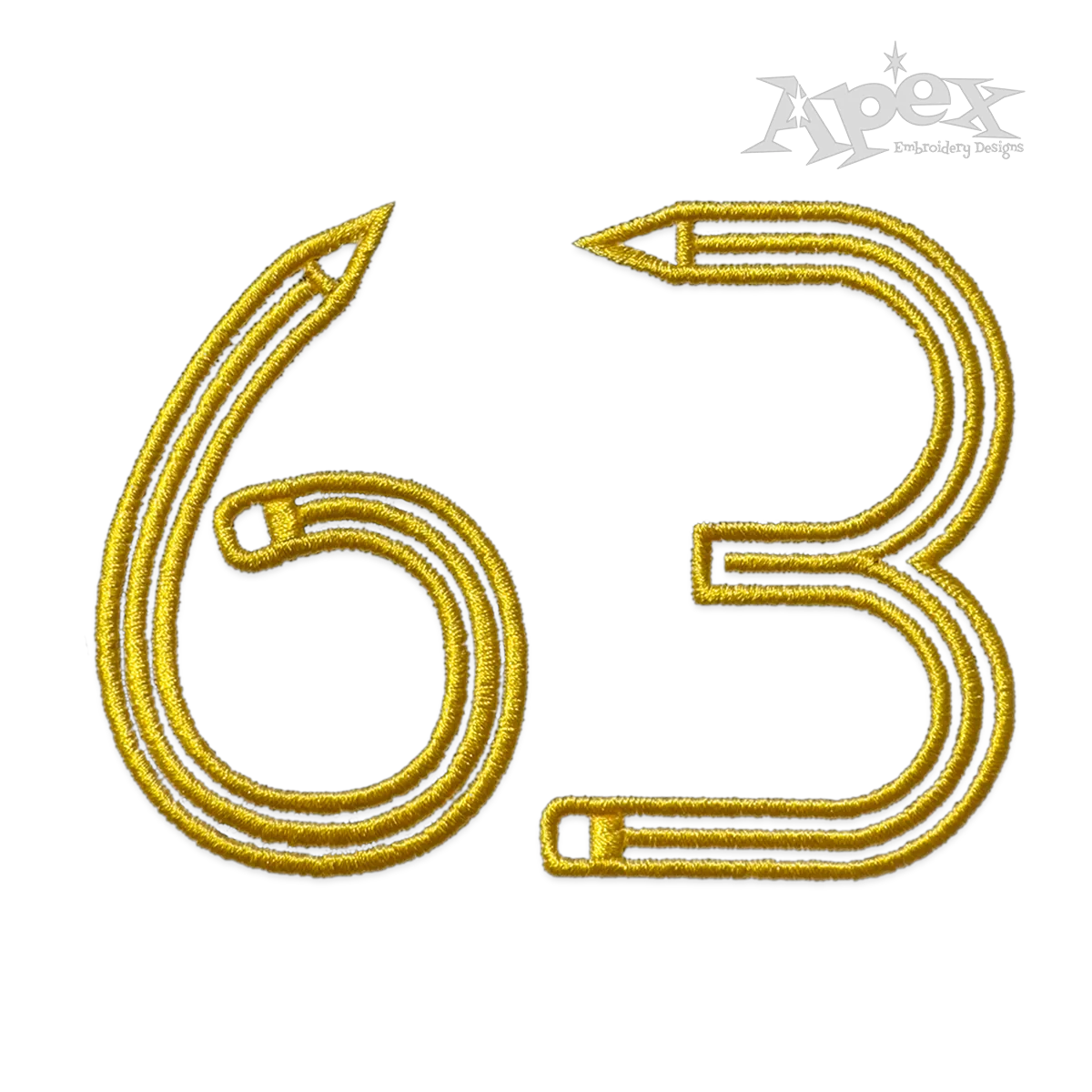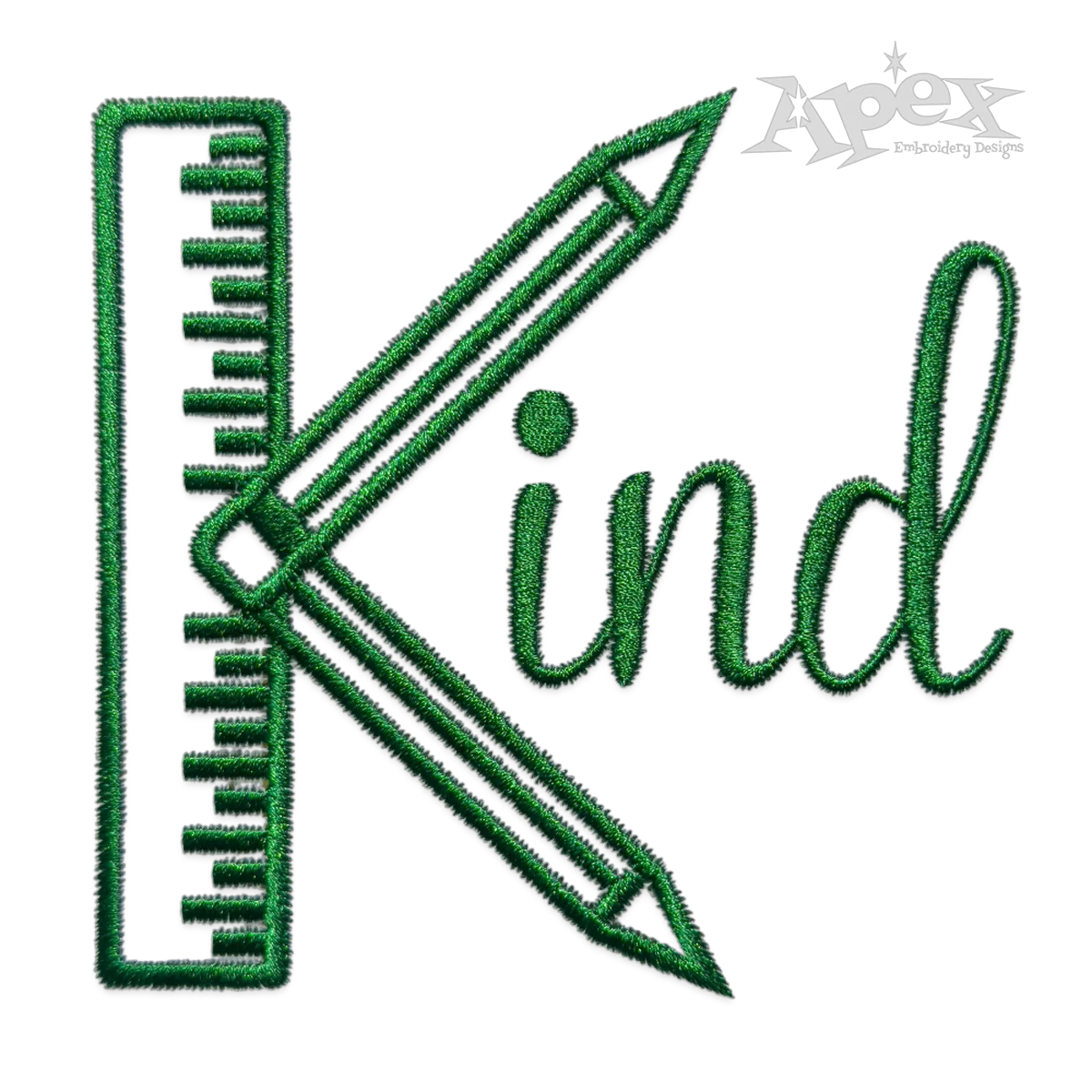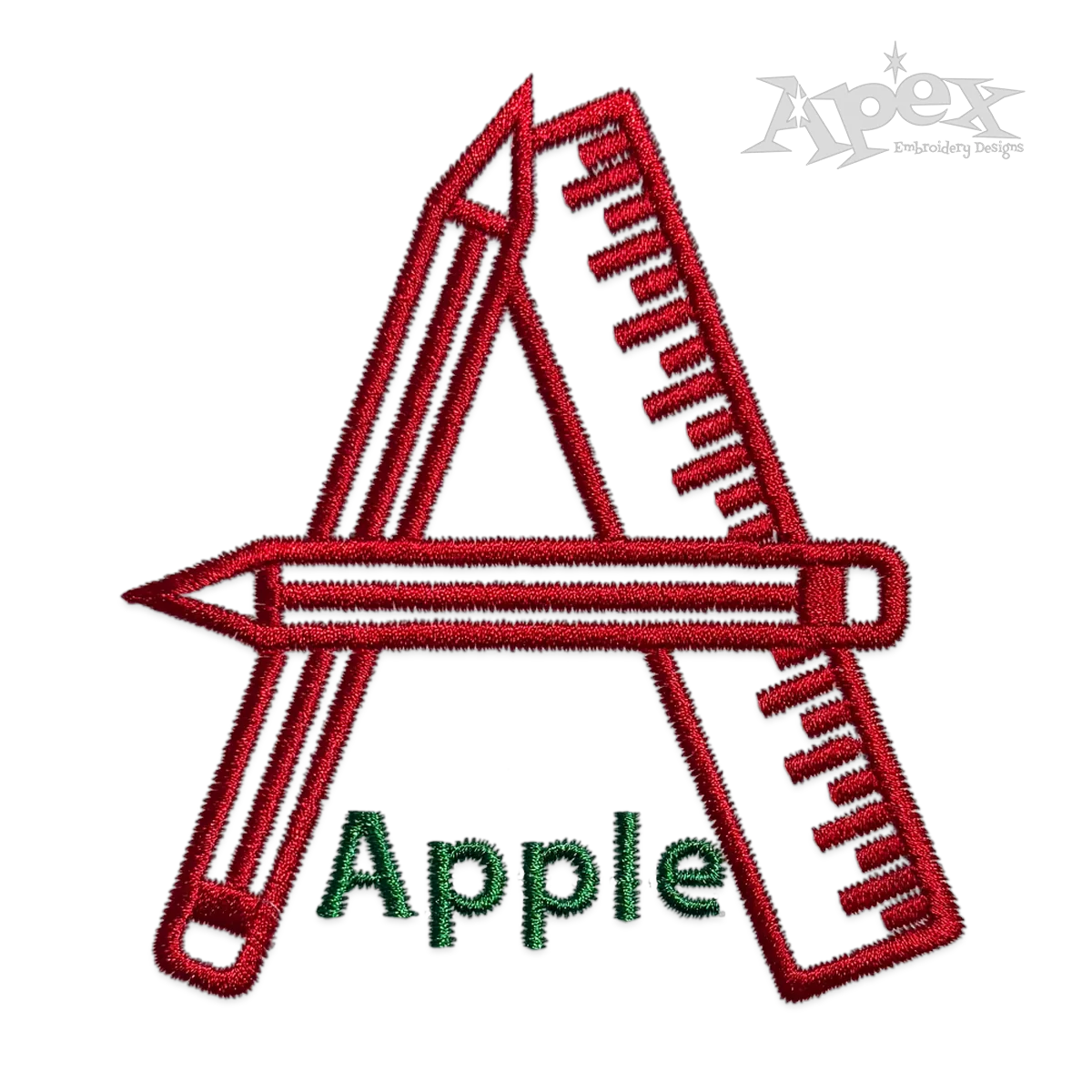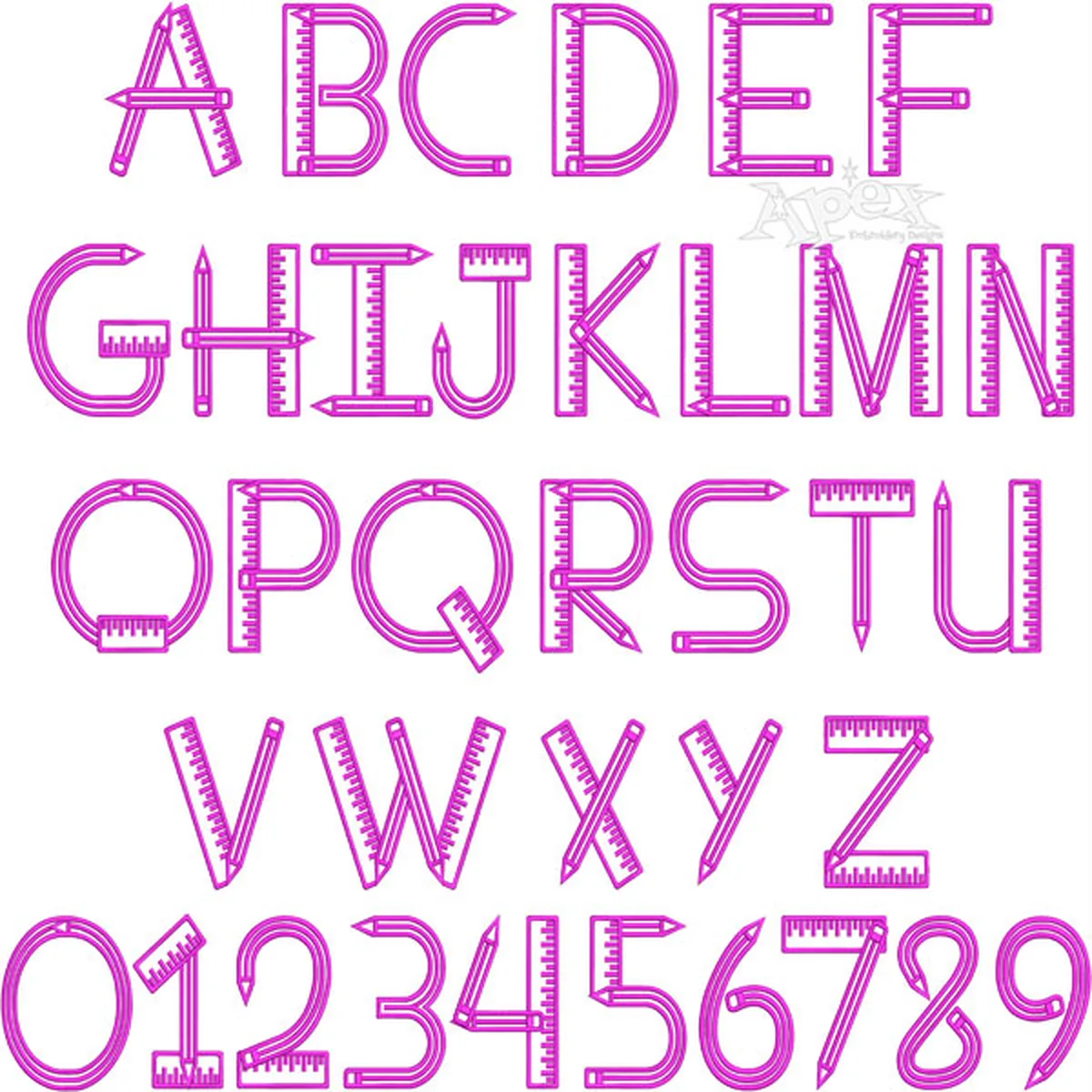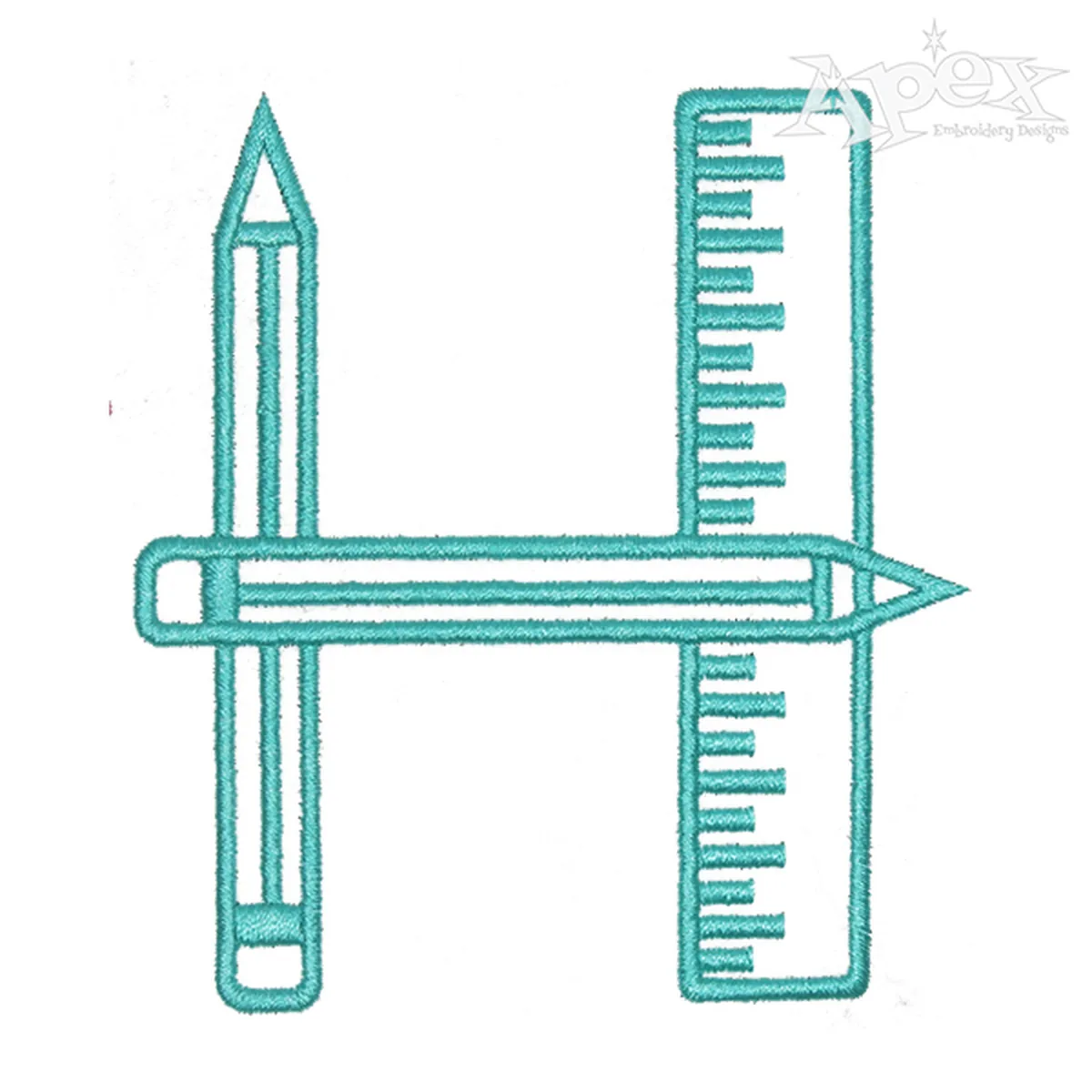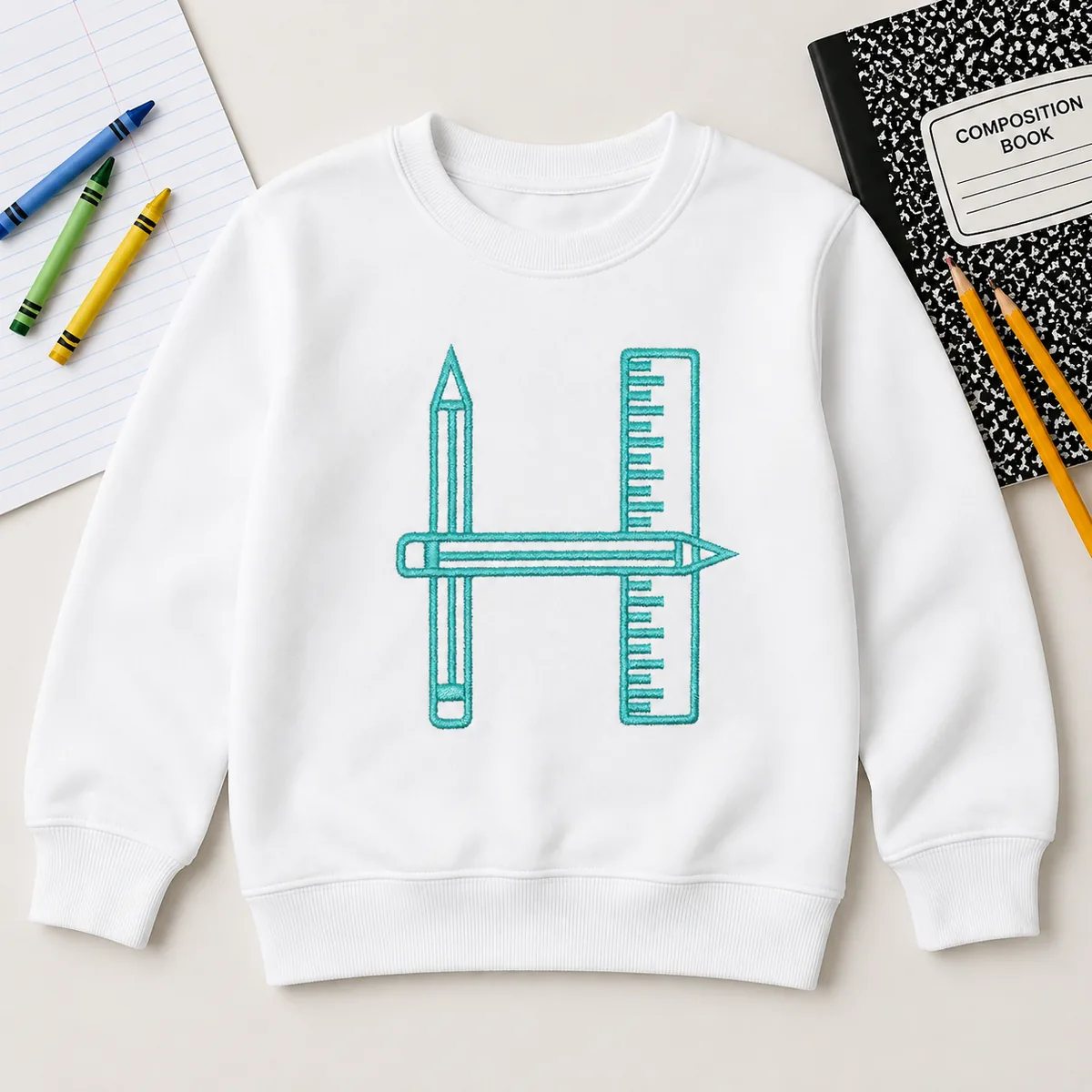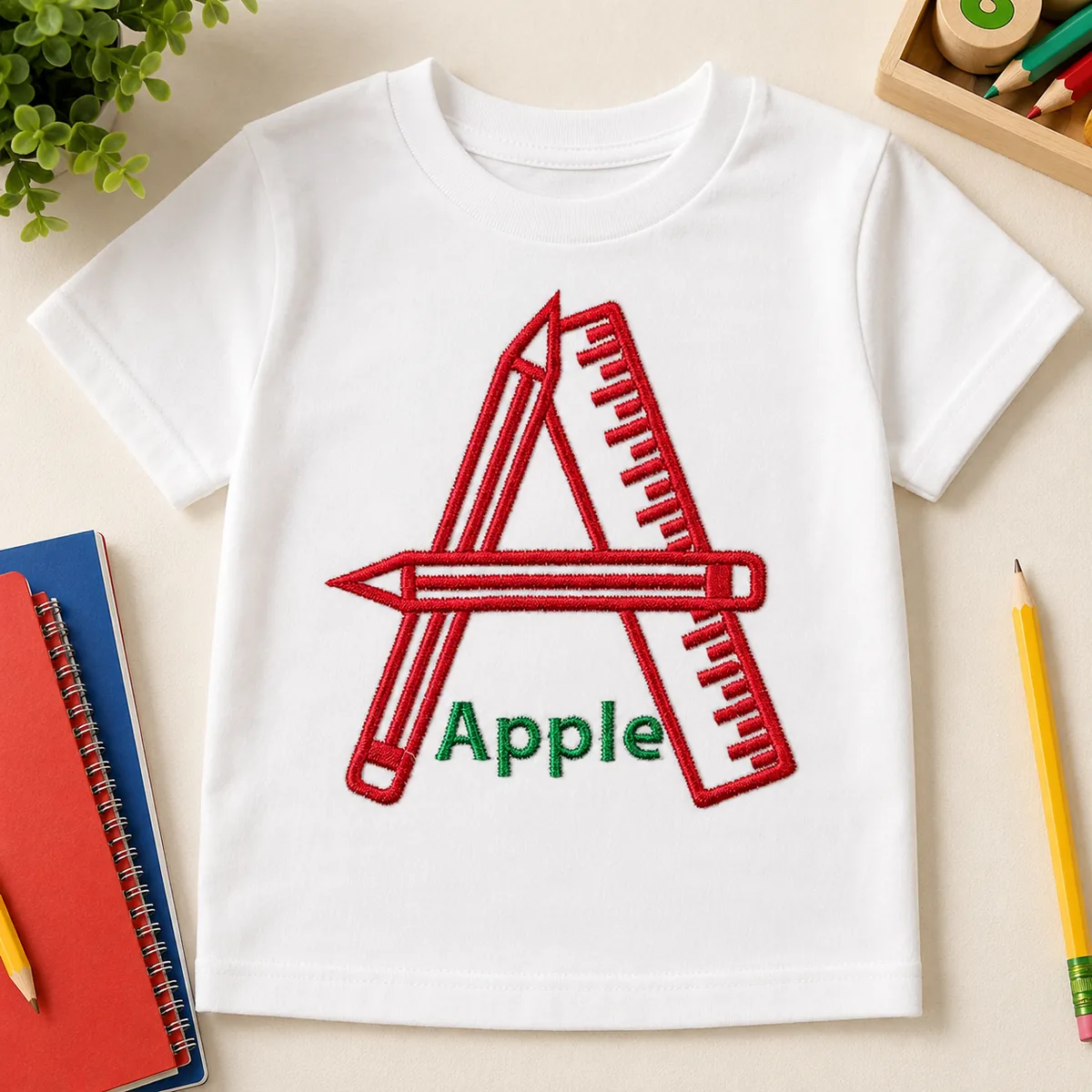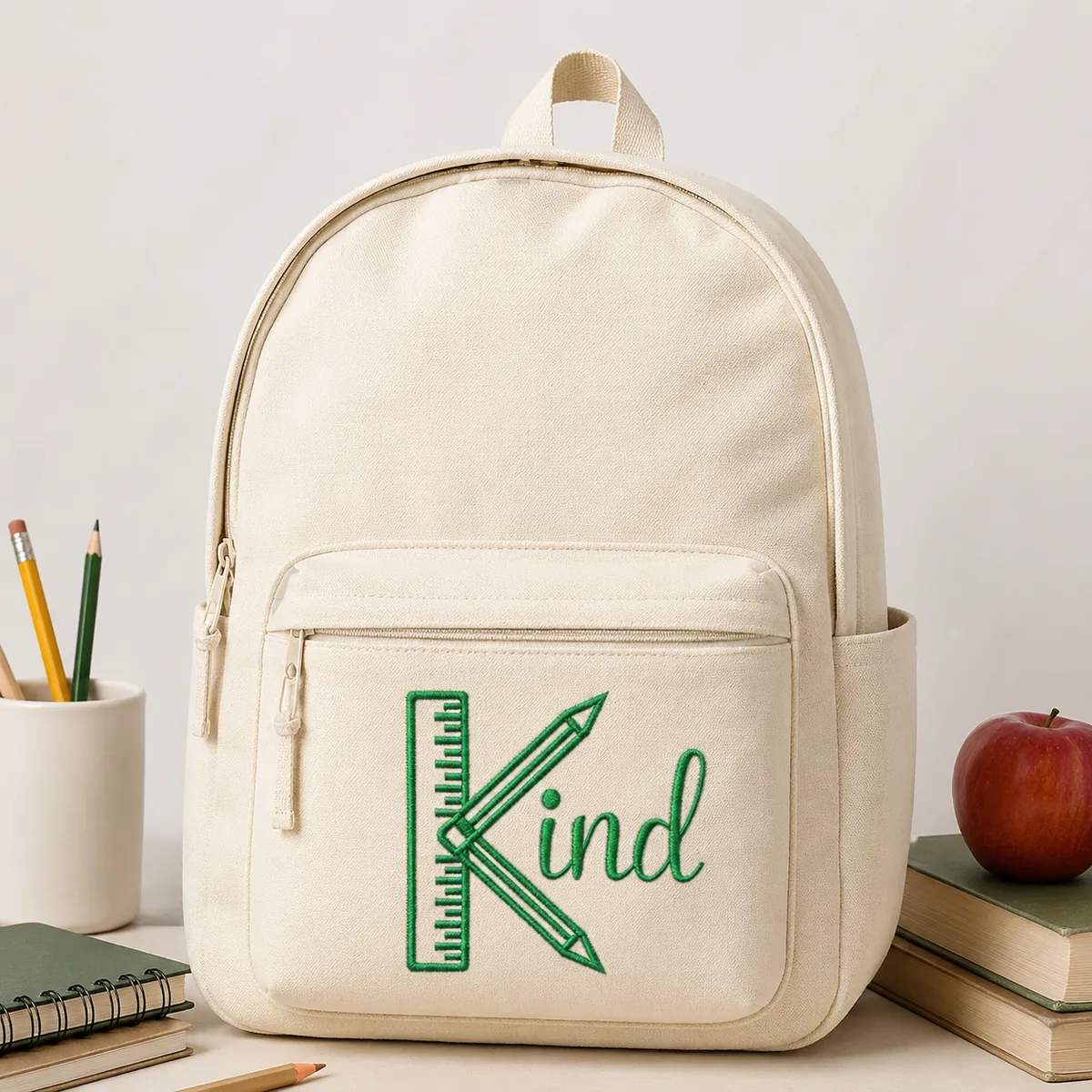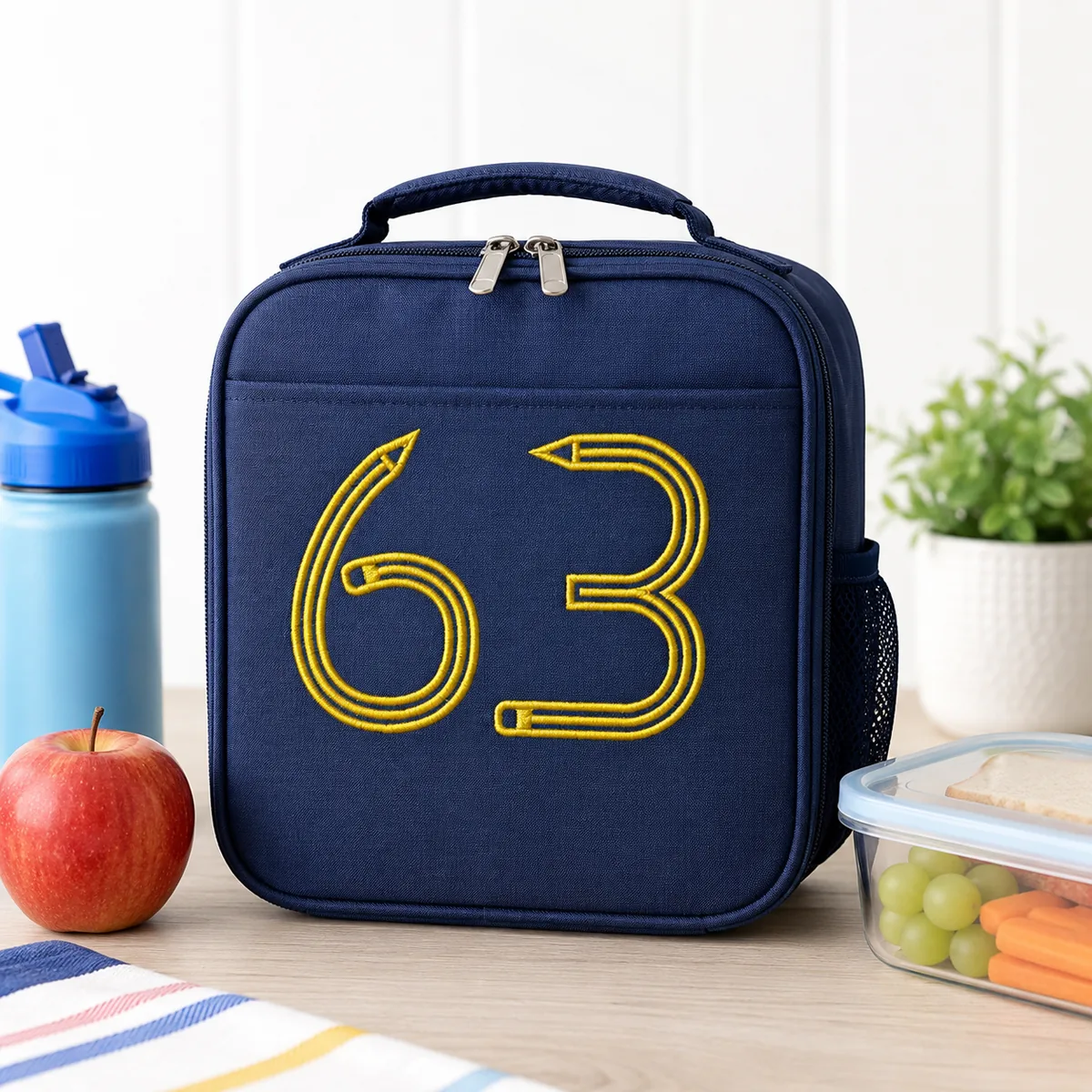
School Embroidery Font – Back to School Alphabet & Numbers
Create fun and personalized back-to-school projects with this School Embroidery Font. Featuring playful pencil and ruler-inspired details, this machine embroidery alphabet and number set is perfect for customizing shirts, backpacks, lunch bags, classroom accessories, teacher gifts, and more.
Use the included letters and numbers to stitch names, initials, grade levels, school phrases, and custom designs for students, teachers, and classroom projects.
Why You’ll Love This School Embroidery Font
- Fun pencil and ruler theme designed for school projects
- Includes both alphabet letters and numbers
- Perfect for personalized back-to-school items
- Great for students, teachers, and classroom gifts
- Digitized specifically for machine embroidery
- Easy to combine into names, grades, initials, and custom phrases